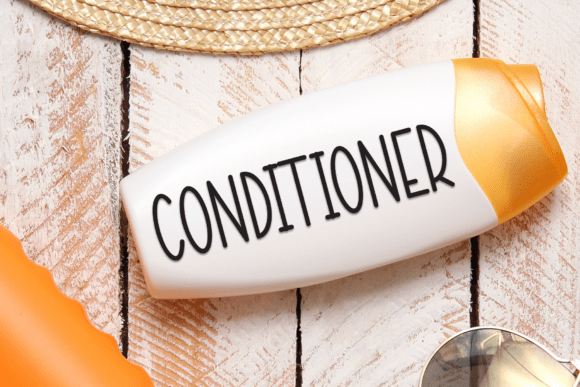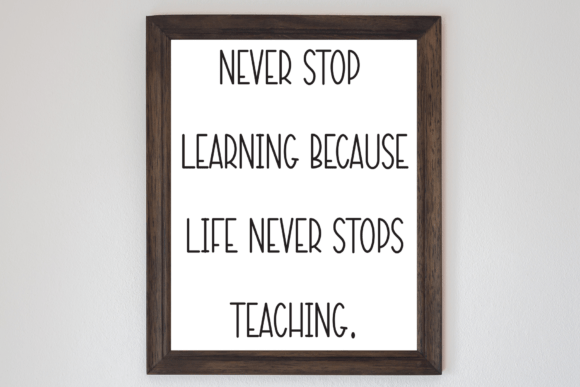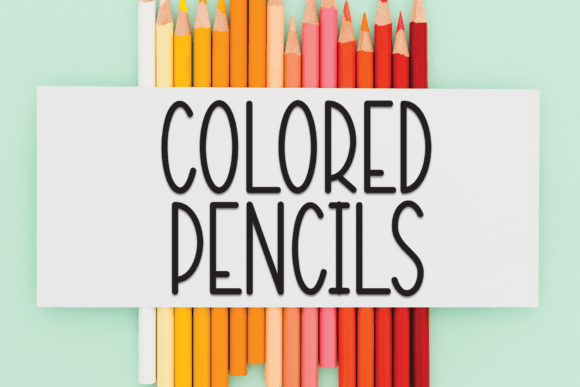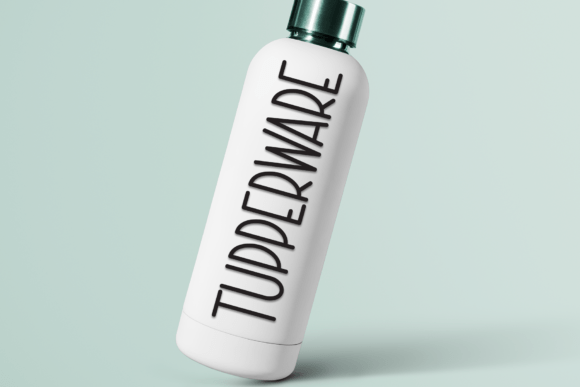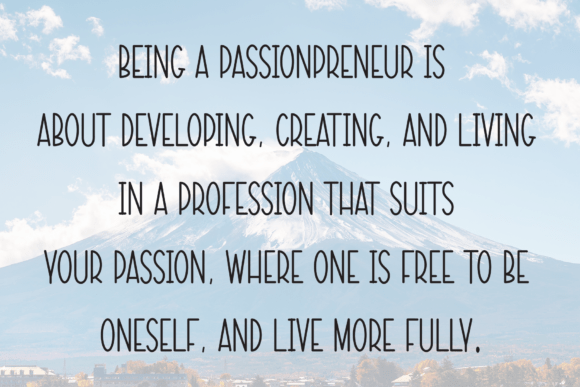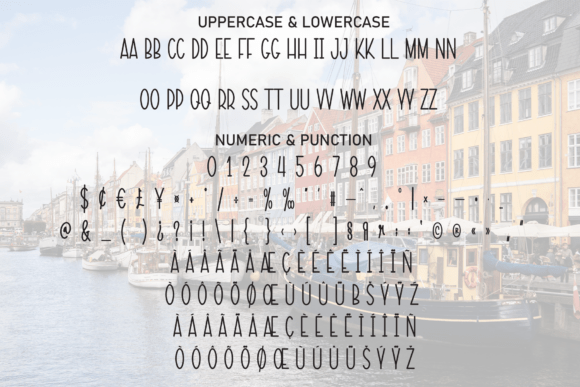
The Perfect Typographic Touch: Unlocking the Elegance of Amsterdam Font
As designers, we’ve all been there – staring at a blank canvas, desperately seeking the perfect font to elevate our project. The moment of truth arrives when we stumble upon a font that perfectly captures the essence of our design. For me, it was a serendipitous discovery of the Amsterdam Font, a thin and tall handwritten font that exudes elegance and modern charm.
The Amsterdam Font is designed to add a touch of sophistication to any project, making it a valuable asset for designers. Its minimalist form and airy lines create a clean, legible, and stylish look that’s perfect for fashion branding, invitations, quotes, social media graphics, and upscale packaging. By incorporating the Amsterdam Font into your design, you can add a subtle personal touch without overwhelming your audience.
Amsterdam Font Key Features
- Font Family: Amsterdam Font is a sans-serif font family designed for digital use.
- Unique Characteristics: Amsterdam Font features a clean and modern design, with a subtle rounded edge to the letters, giving it a friendly and approachable feel.
- Language Support: Supports multiple languages, including Latin, Cyrillic, and Greek scripts, making it a versatile font for global design applications.
Amsterdam Font Review
Overall, I have mixed feelings about the Amsterdam Font. It’s a beautiful, high-end font that could be perfect for luxury brands or sophisticated designs. ✨ Here are some things that work well:
- Unique aesthetic: Amsterdam Font has a distinct, elegant feel that sets it apart from more common fonts.
- Wide language support: It supports a wide range of languages, making it a versatile choice for global projects.
- Good legibility: The font is easy to read, even at smaller sizes, which is essential for body text.
- Limited character set: While it supports many languages, it’s not ideal for projects that require a vast range of special characters.
- Not suitable for casual use: The font’s high-end feel might not be the best fit for everyday designs or projects with a more relaxed tone.
Overall, I think Amsterdam Font is a solid choice for high-end projects or designs that require a touch of sophistication. However, its limitations and high cost might make it less appealing for smaller projects or those on a budget.
Amsterdam Font is ideal for creating elegant and sophisticated designs. Use it for: creating invitations, designing business cards, and crafting presentation titles. To get the most out of Amsterdam Font, experiment with different font sizes, colors, and styles to create a unique visual effect.
Alternatives to Amsterdam Font for Designers
Playfair Display is a luxurious and elegant serif font, ideal for creating high-end branding and marketing materials. Its refined and intricate details make it perfect for use in headings and titles. Compared to Amsterdam Font, Playfair Display has a more refined and classic look, whereas Amsterdam Font is more modern and minimalist.
Montserrat is a modern sans-serif font that is highly legible and versatile, making it suitable for use in various digital platforms, including websites and mobile apps. Its clean and geometric design makes it a great alternative to Amsterdam Font, which has a more organic and rounded feel. Montserrat is ideal for use in body text and titles where a modern look is desired.